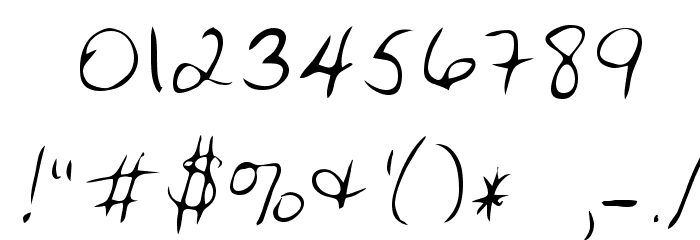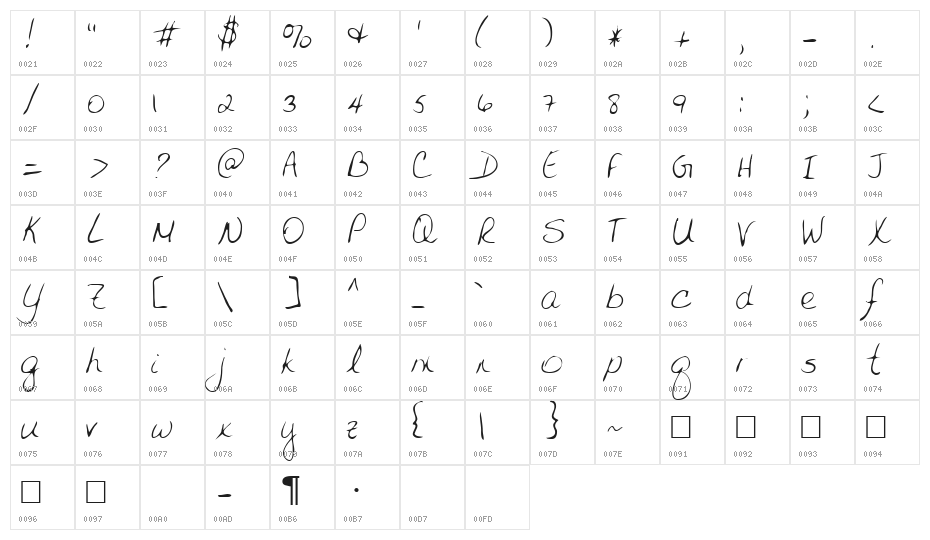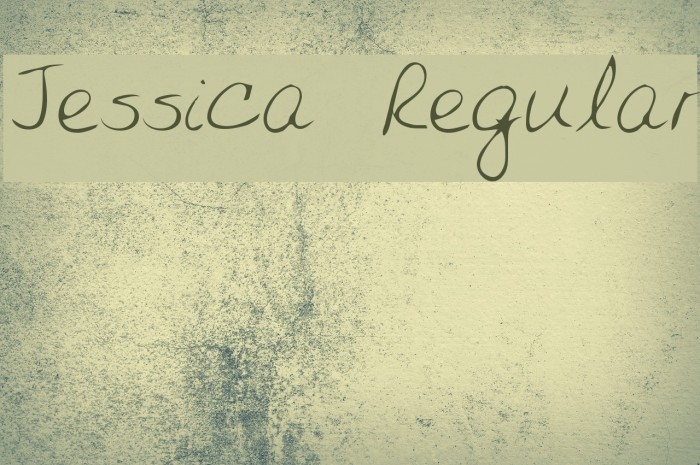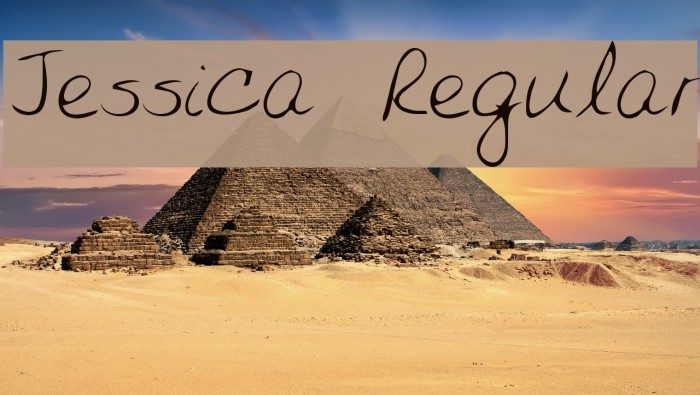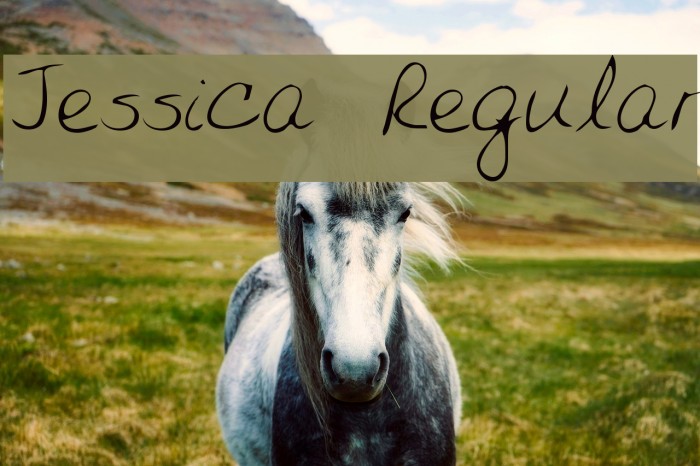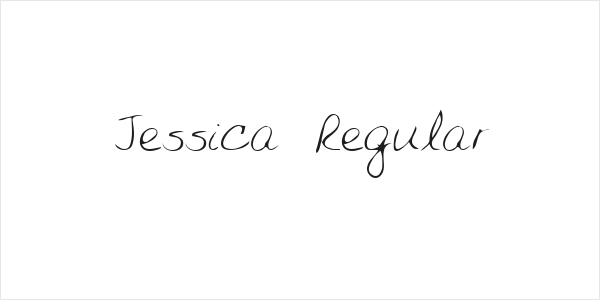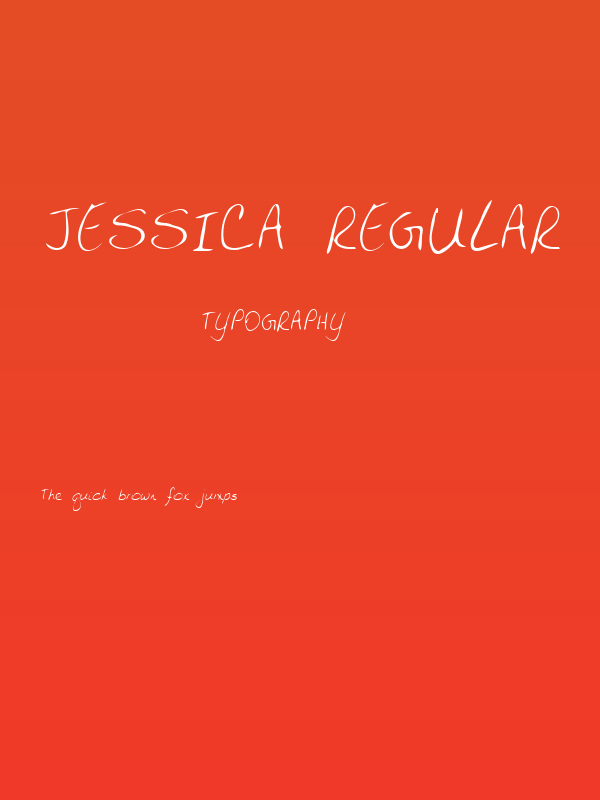
Jessica Regular Font
Jessica Regular Description
This font exhibits a fluid and elegant script style, characterized by its smooth, flowing lines and slightly slanted characters. The uppercase letters are bold and expressive, while the lowercase letters maintain a consistent rhythm and grace. The numerals are distinct and easy to read, complementing the overall aesthetic. Special characters are crafted with a playful yet sophisticated touch, adding versatility to the font. The strokes vary in thickness, providing a dynamic and lively appearance that enhances its handwritten feel.